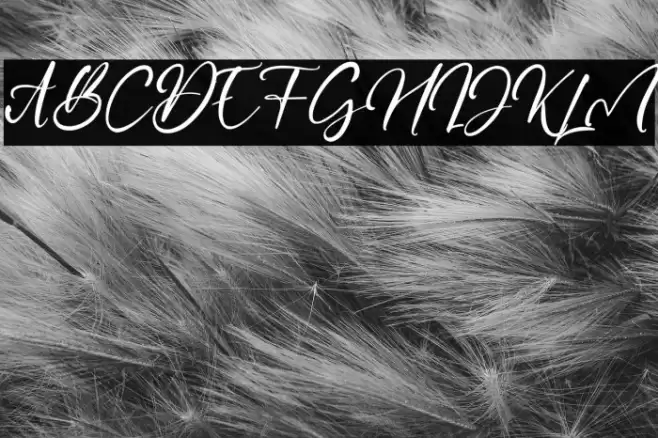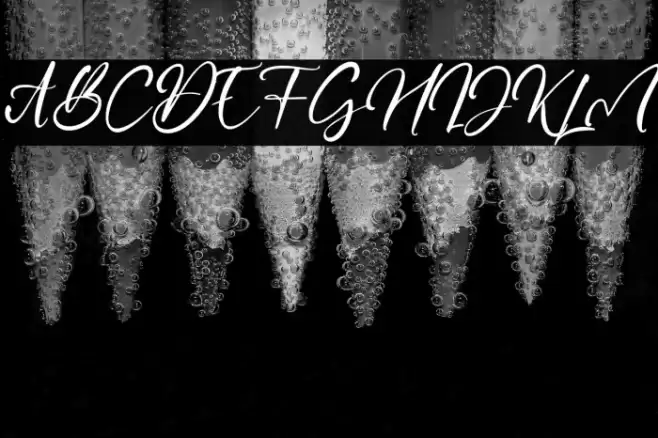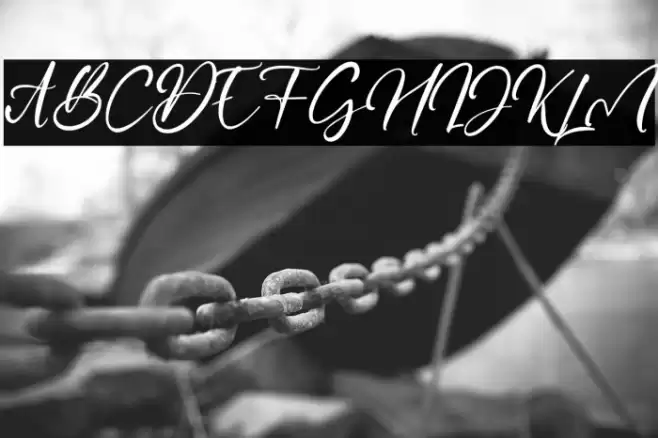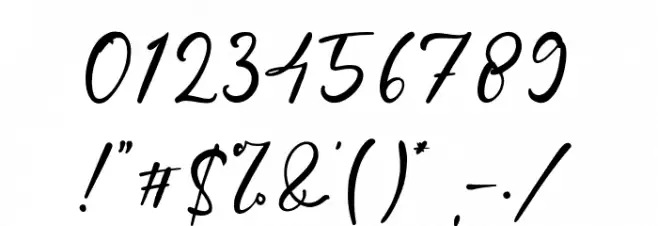
CaptureMoment Font
CaptureMoment Description
This font features an elegant and flowing script style, characterized by its cursive and interconnected letterforms. The uppercase letters exhibit a graceful and sophisticated appearance, with sweeping curves and loops that convey a sense of fluidity and motion. The lowercase letters maintain this fluidity, with some characters featuring distinctive flourishes and swashes that enhance the overall aesthetic. The numerals are consistent with the script style, offering a harmonious blend with the alphabet. Special characters are designed to complement the script, maintaining the same level of elegance and intricacy. This font is ideal for projects that require a touch of elegance and sophistication, such as wedding invitations, branding, and high-end product packaging.
An elegant and flowing script font with interconnected letterforms and graceful curves from Uncategorized fonts.
- Font: CaptureMoment
- Proposed Projects: Ideal for wedding invitations, luxury branding, elegant product packaging, and personal stationery.
- Overall Style: Elegant
- Use Case: Logos, Invitations, Branding